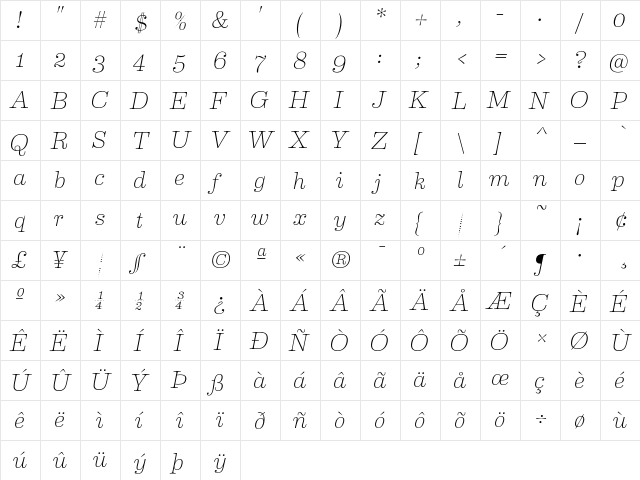
Eames Century Modern Thin Italic
| Foundry | House Industries |
| Designer | Erik van Blokland |
| Year | 2010 |
Design Context for Eames Century Modern Thin Typeface
Eames Century Modern Thin offers clean, dependable letterforms without strong stylistic allegiance, making it a practical choice for designers who need flexibility. The slanted form adds forward momentum and visual energy. Its slender proportions lend an understated elegance to any composition.
Pro Tip: Use Eames Century Modern Thin for emphasis, pull quotes, and subheadings where its slanted energy can add rhythm to the layout.